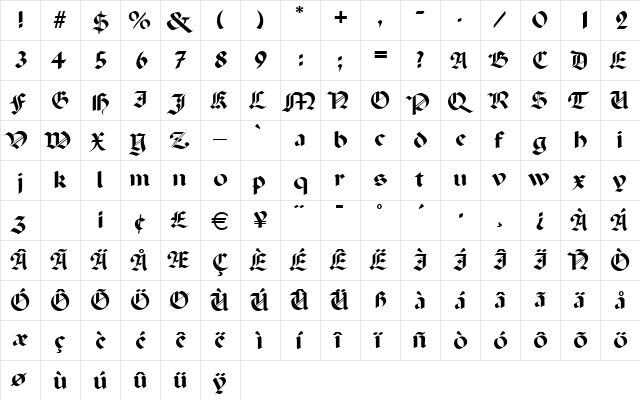
P650-Blackletter Regular
Design Context for P650-Blackletter Typeface
P650-Blackletter channels the dramatic heritage of Fraktur and Gothic scripts, bringing a sense of historical gravitas to any design.
A natural fit for music packaging, gothic editorial design, and any project that needs historical weight.
Font Pairing: Pair with a clean neutral sans-serif for body copy to let P650-Blackletter's character lead without overwhelming the composition.